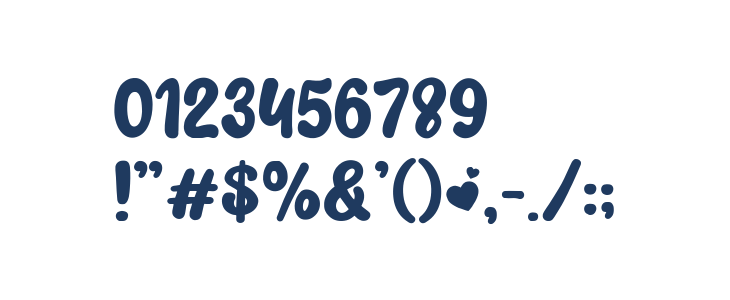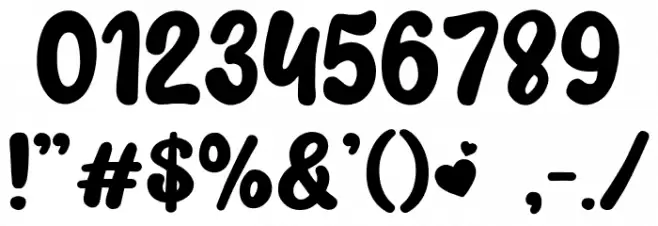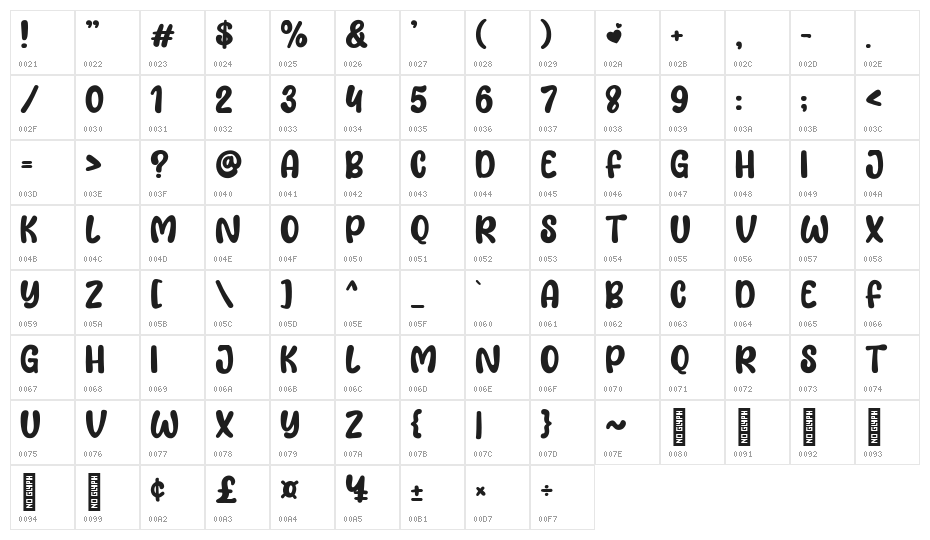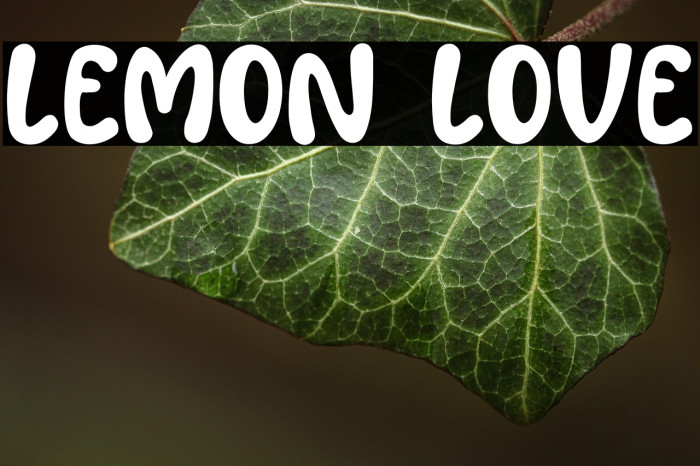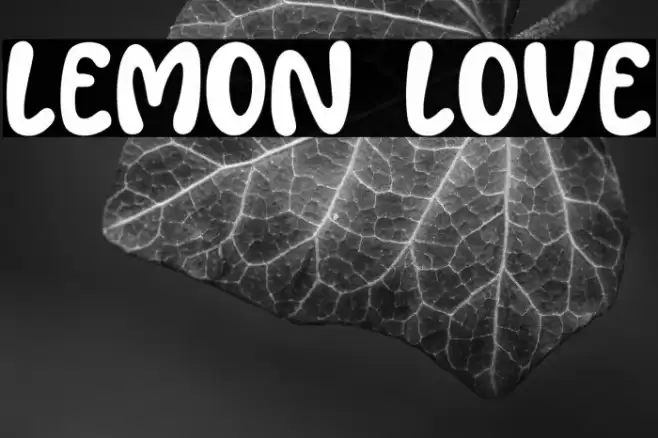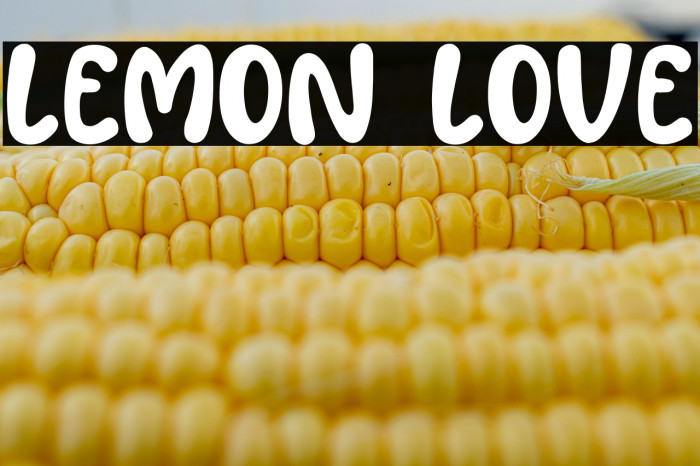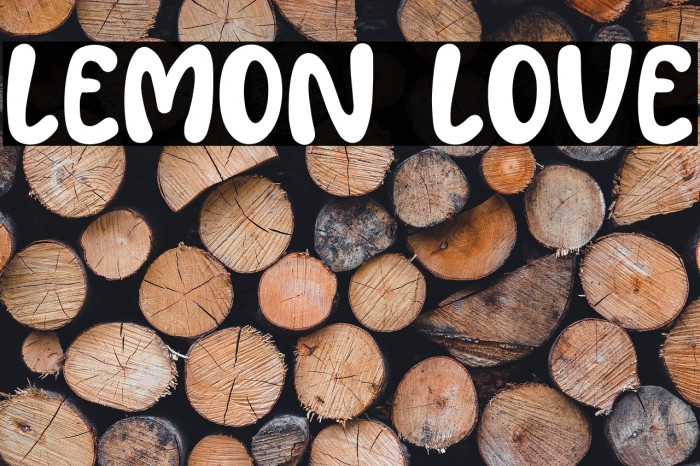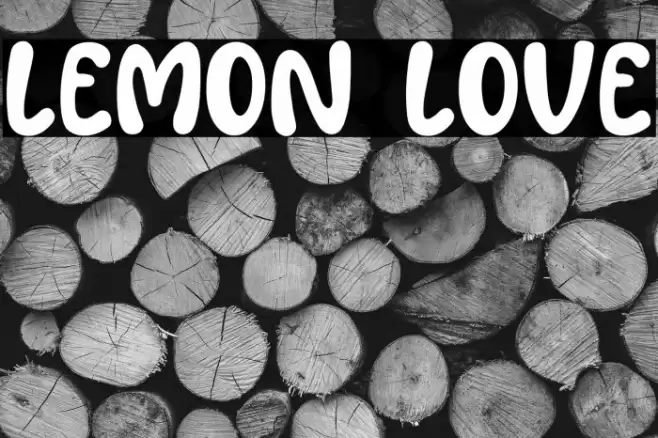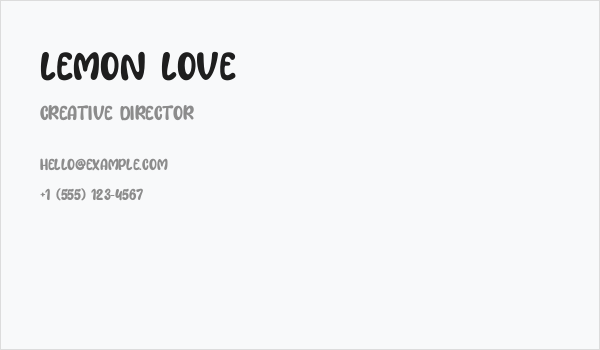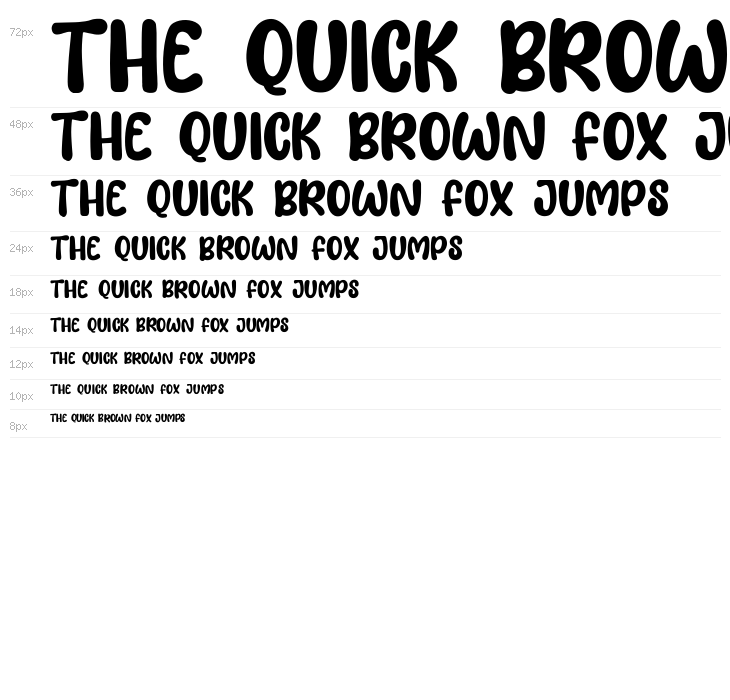
Lemon Love Font
Lemon Love Description
This playful and bold font features rounded, thick strokes that give it a friendly and approachable appearance. The characters are uniformly bold, with a consistent stroke width that maintains a sense of balance and harmony across the alphabet. The rounded edges and slightly exaggerated curves add a whimsical touch, making it ideal for projects that require a fun and lively aesthetic. The numerals and special characters are designed to match the playful style of the letters, ensuring a cohesive look throughout. This font is perfect for creating eye-catching headlines, posters, or branding materials that need a touch of personality.
| Proposed Projects | Ideal for children's books, playful branding, posters, and eye-catching headlines. |